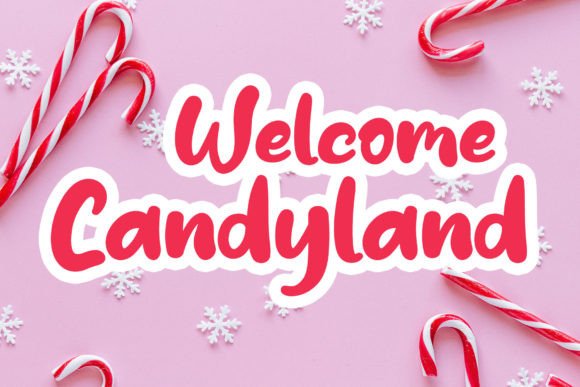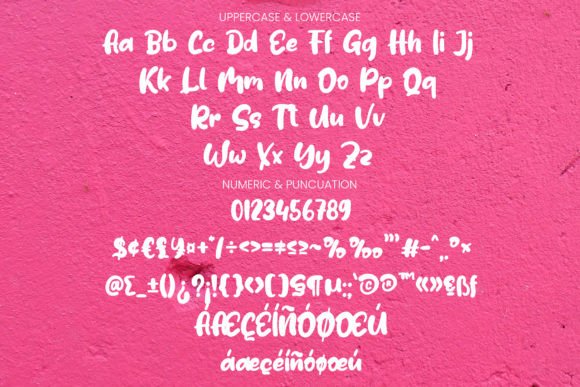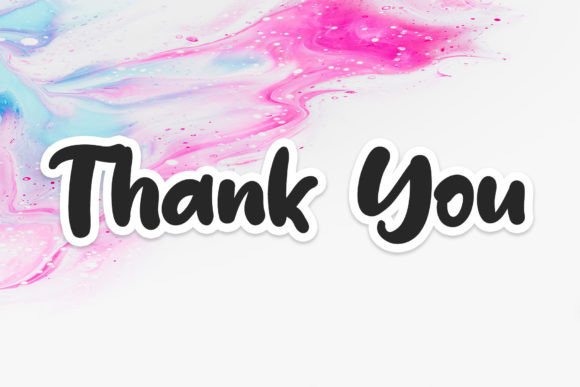
Introduction to Mirage Font
Do you remember the moment when you stumbled upon the perfect font for your creative project? The one that makes your design pop and grabs everyone’s attention? For designers, finding the right font can be a game-changer, and that’s exactly what the Mirage Font offers.
Imagine a font that’s not only bold and thick but also fun and playful, making it perfect for branding and packaging projects. The Mirage Font is a high-quality design resource that’s sure to elevate your designs to the next level. With its unique combination of fun and creativity, you can instantly grab anyone’s attention and leave a lasting impression.
Whether you’re working on a design project that requires a transparent background or looking for a free download to add some personality to your designs, the Mirage Font is an invaluable asset for any designer. Its versatility and unique style make it an excellent addition to any design arsenal.
Key Features of Mirage Font
- High-quality design for creative projects, offering a unique and modern aesthetic.
Honest Review: Mirage Font
I recently stumbled upon the Mirage Font and was immediately impressed by its unique aesthetic. This font is perfect for any creative project that requires a touch of elegance and sophistication.
Here are some of the things that work well about the Mirage Font:
- ✨ High quality: The font is crisp and clear, making it perfect for both digital and print designs.
- ⚠️ Limited character set: The font only includes a limited set of characters, which may not be suitable for projects that require a wide range of special characters.
- ⚠️ Not ideal for bold text: While the font is perfect for elegant and sophisticated designs, it may not be the best choice for bold or attention-grabbing text.
Overall, I’m impressed with the Mirage Font and would definitely recommend it for any creative project that requires a touch of class and sophistication.
Mirage Font is perfect for creating eye-catching headings and titles for your design project. It’s also great for use in logos, icons, and other graphics where a high-quality font is needed. With its transparent background, Mirage Font is also ideal for use in presentations and documents where you need to overlay text on top of images or other design elements.